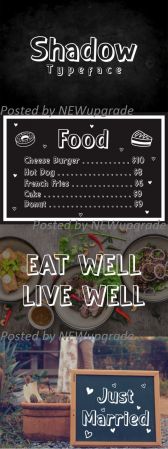
DesignOptimal - Shadow Display Font
DesignOptimal.com - Shadow Display Font
Shadow a simple and strong display font. It will elevate a wide range of design projects to the highest level, be it branding, headings, wedding designs, invitations, signatures, logos, labels, and much more!